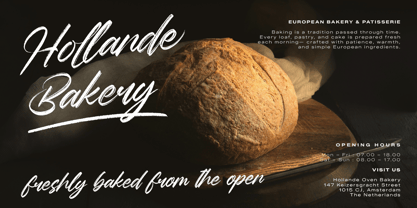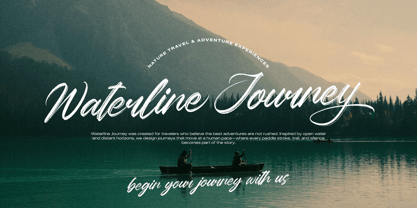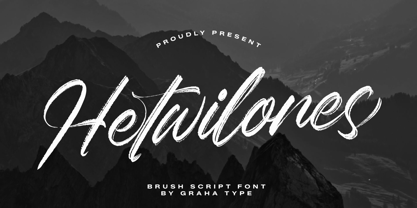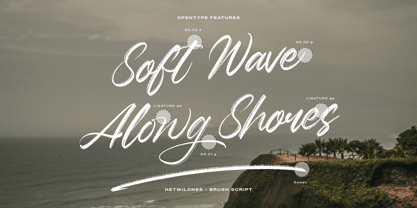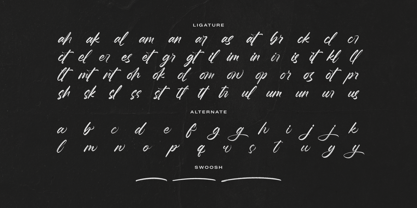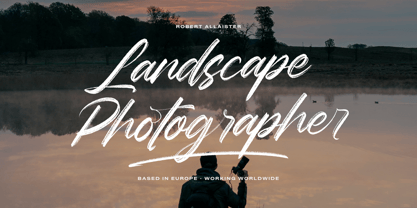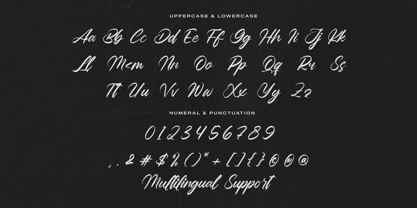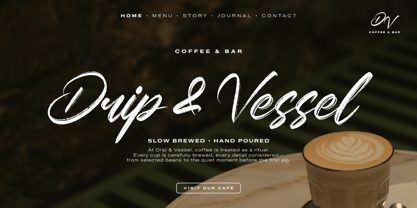
Hetwilones
La familia tipográfica Hetwilones fue diseñada por Toni Nugraha y publicada por Graha Type. Hetwilones contiene 1 estilos. Más información sobre esta familia
Hetwilones is a bold brush script font with strong strokes and expressive character, designed to create a dynamic, powerful, and adventurous look. This font delivers high visual impact with an organic brush feel, perfect for standout typography. This Font is ideal for posters, logos, branding, headlines, apparel, packaging, social media graphics, merchandise, and editorial designs that need bold energy and expressive lettering.